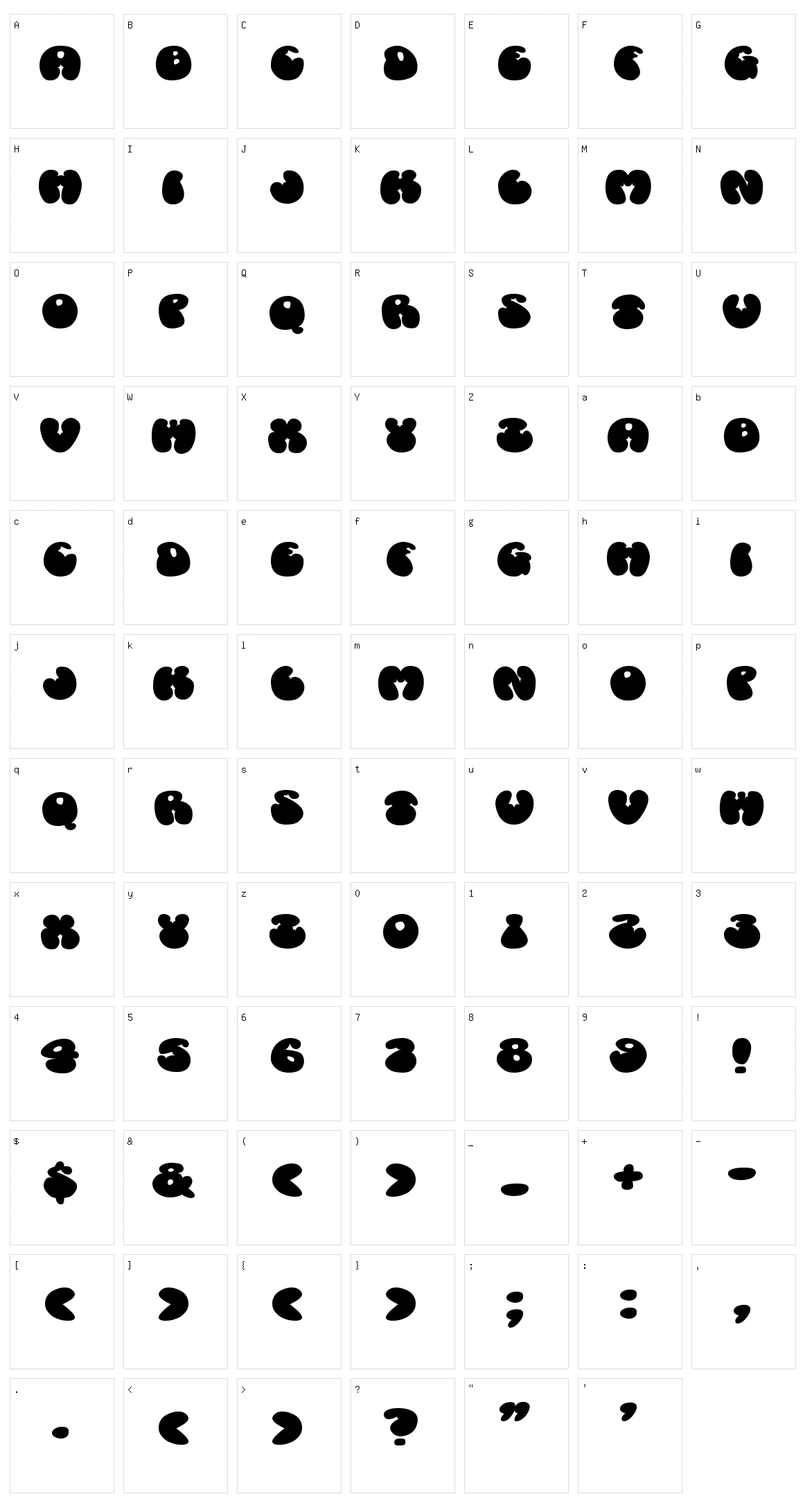
The free font Cosmos Candy is carefully designed by Cosmic Cosmos, showcasing a thoughtful balance of creativity and usability and falls under the Cartoon font style. When you download the ZIP file, it contains only 25.15 KB of font files, making it lightweight and quick to download. Please review the license details below to understand permitted usage and distribution rights. If license information is not available, we recommend using this font for personal projects only or contacting the author directly for commercial usage permissions.